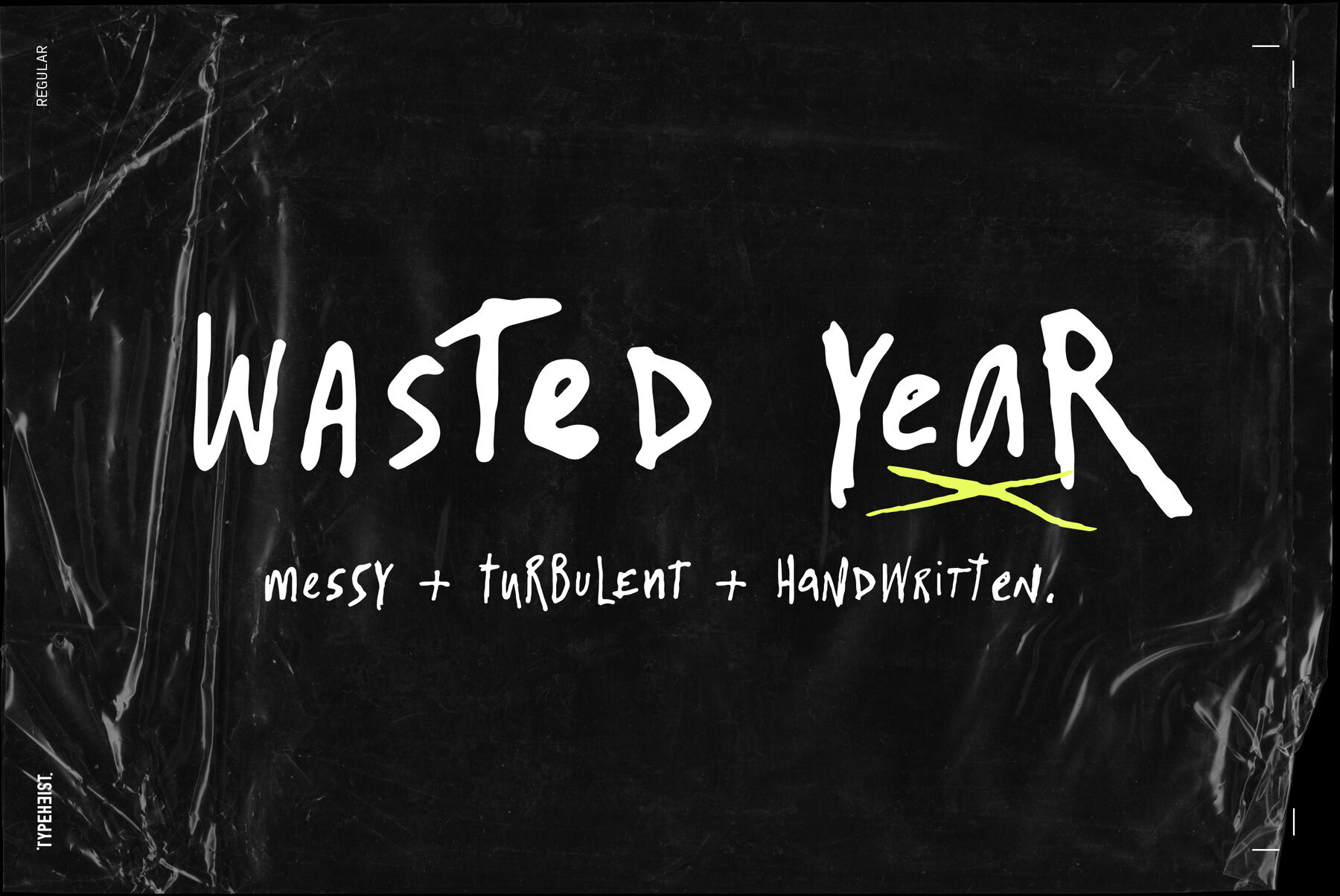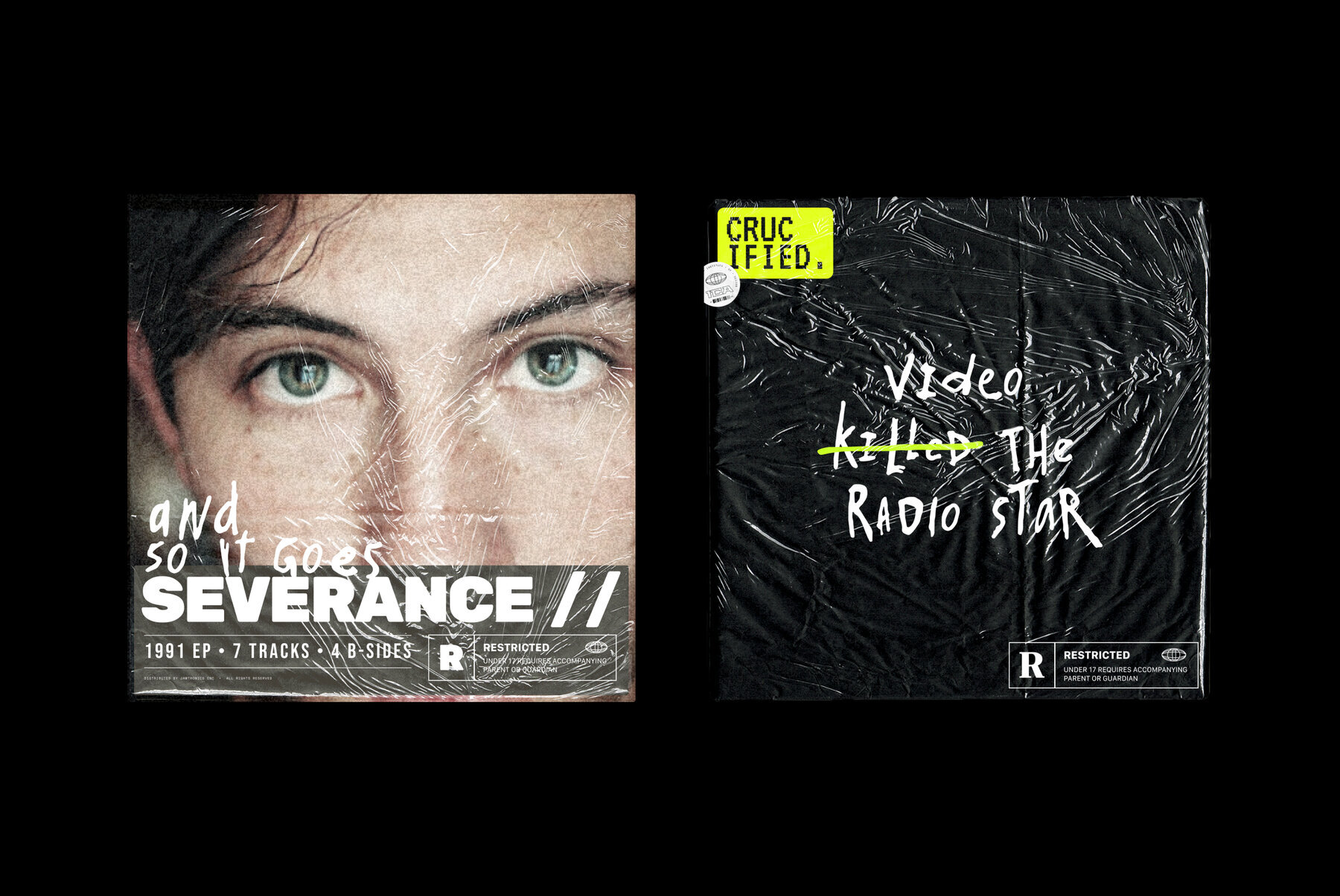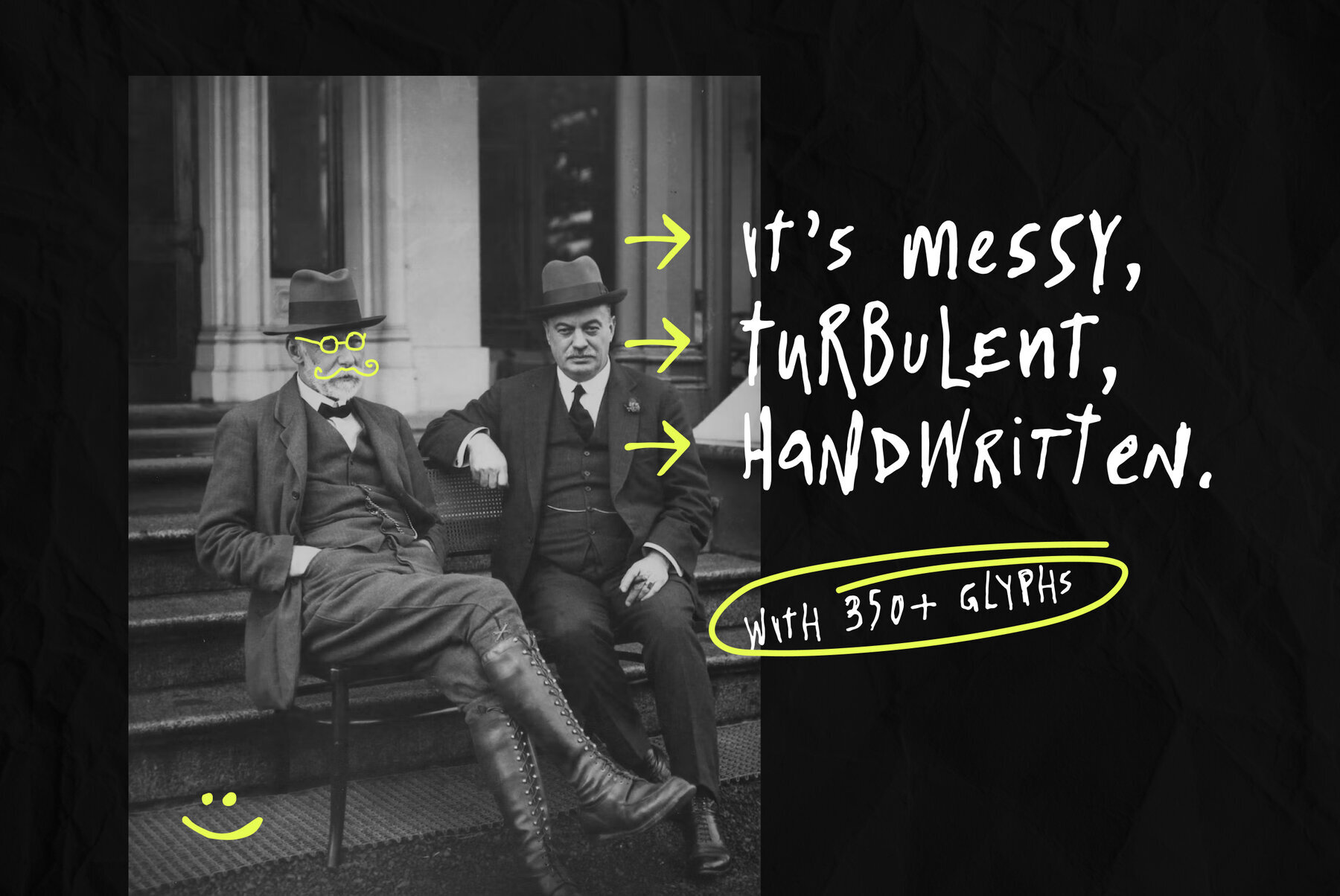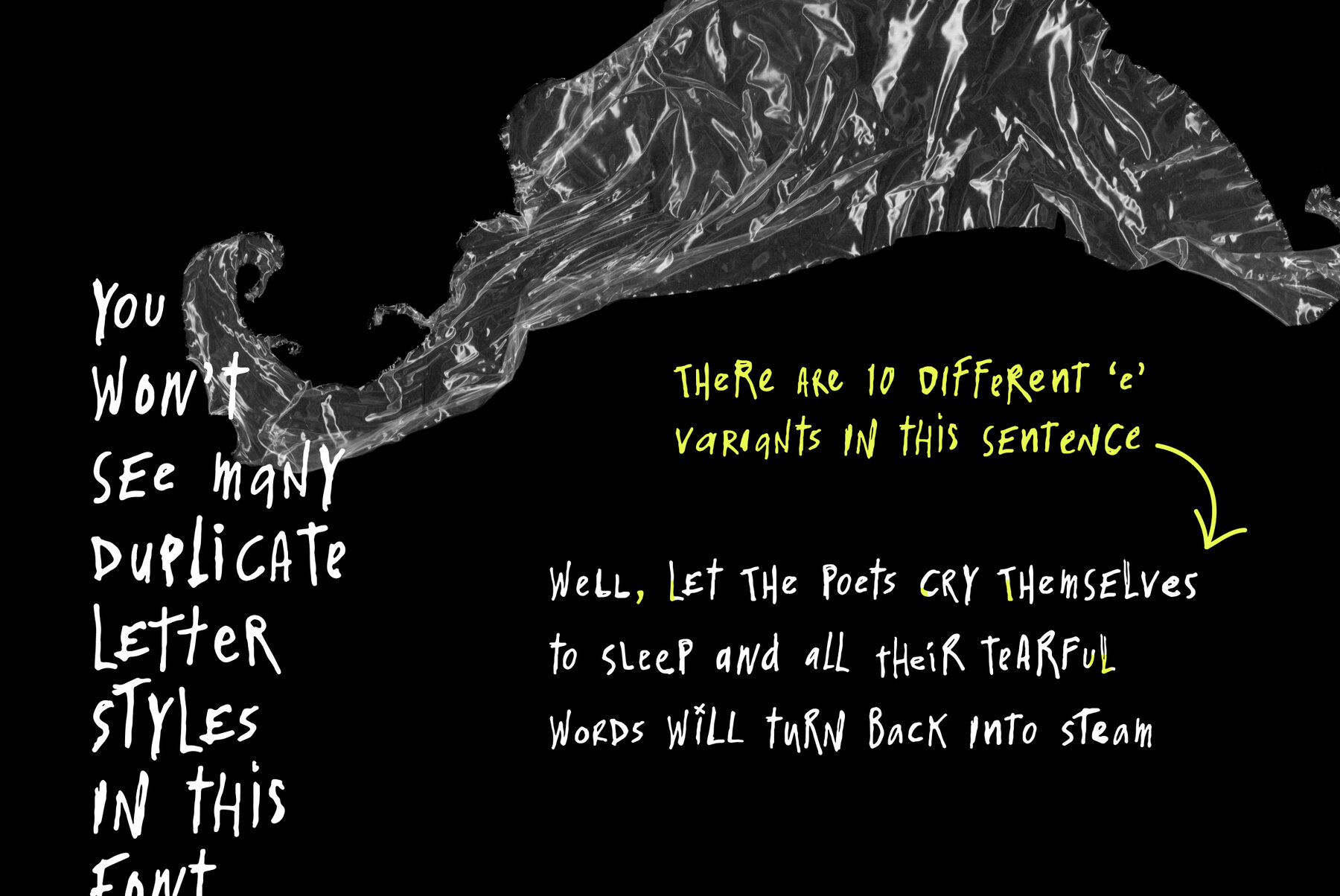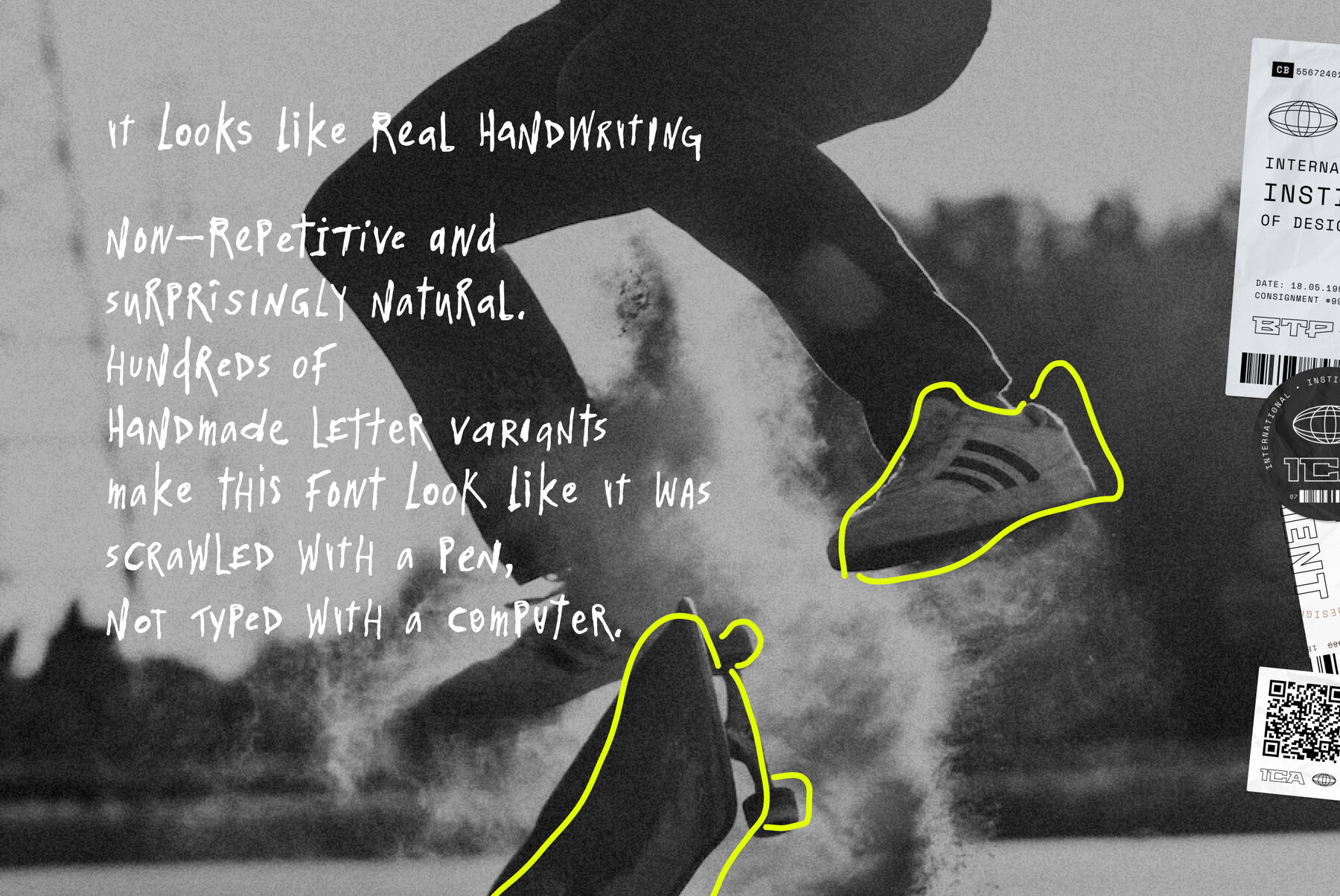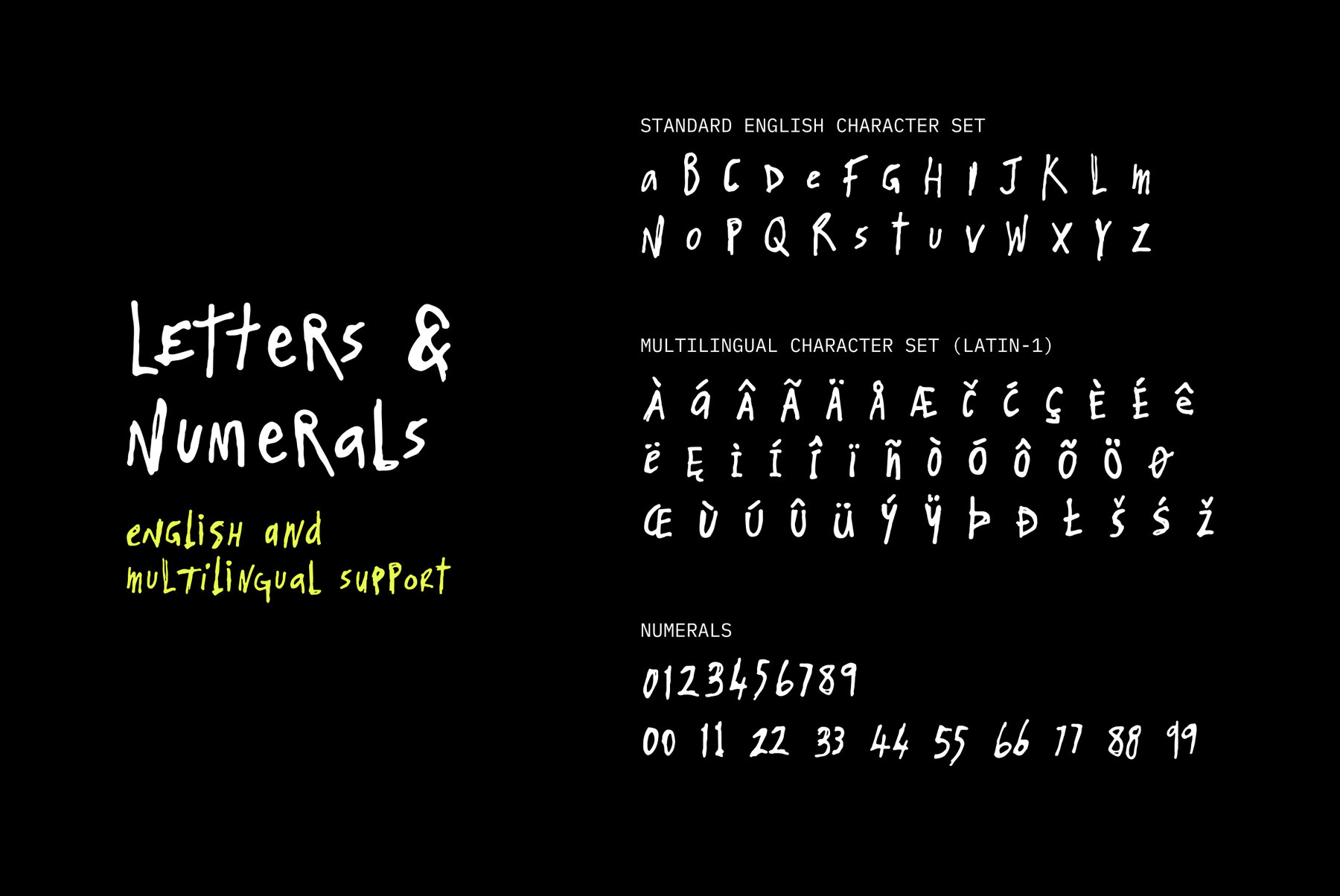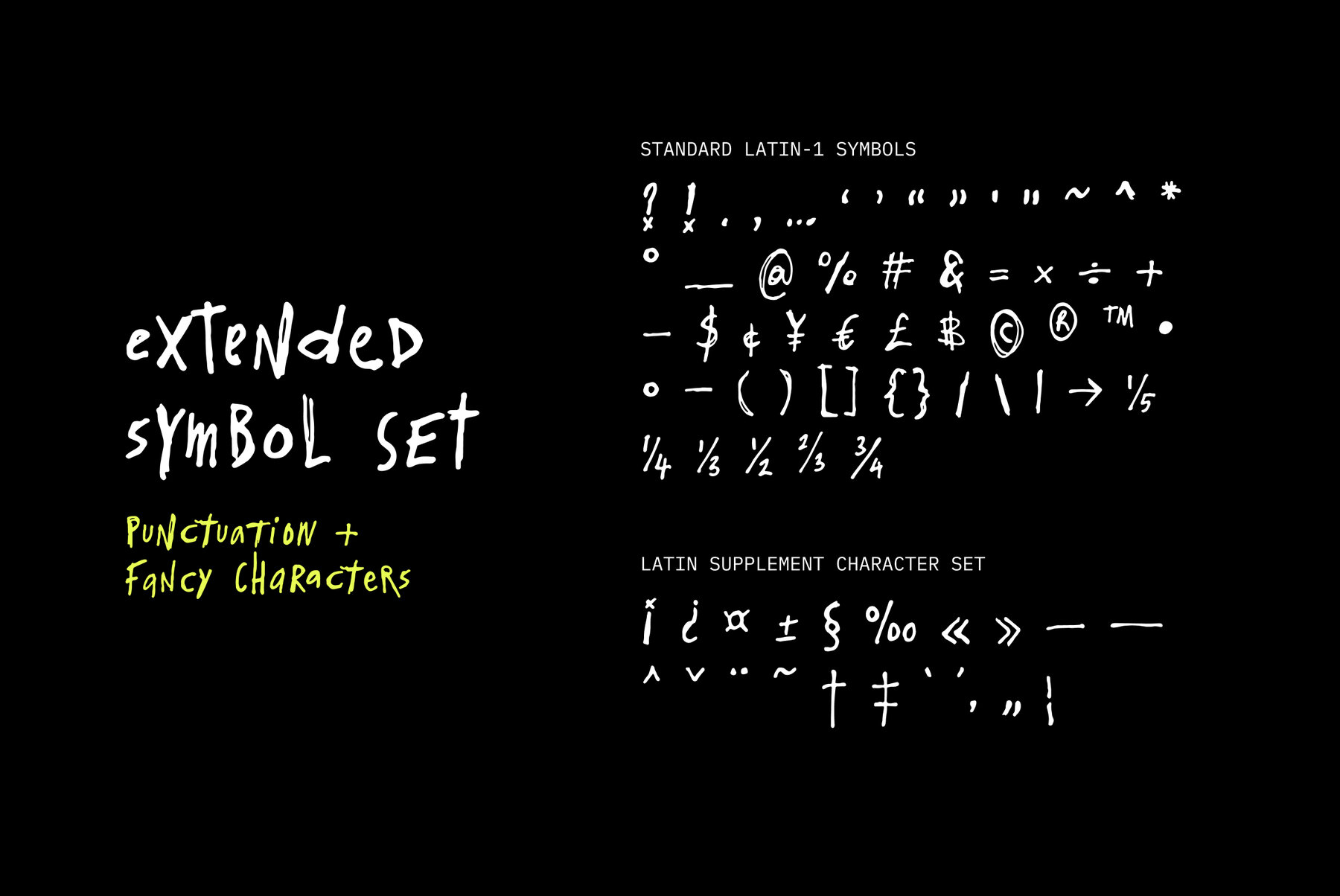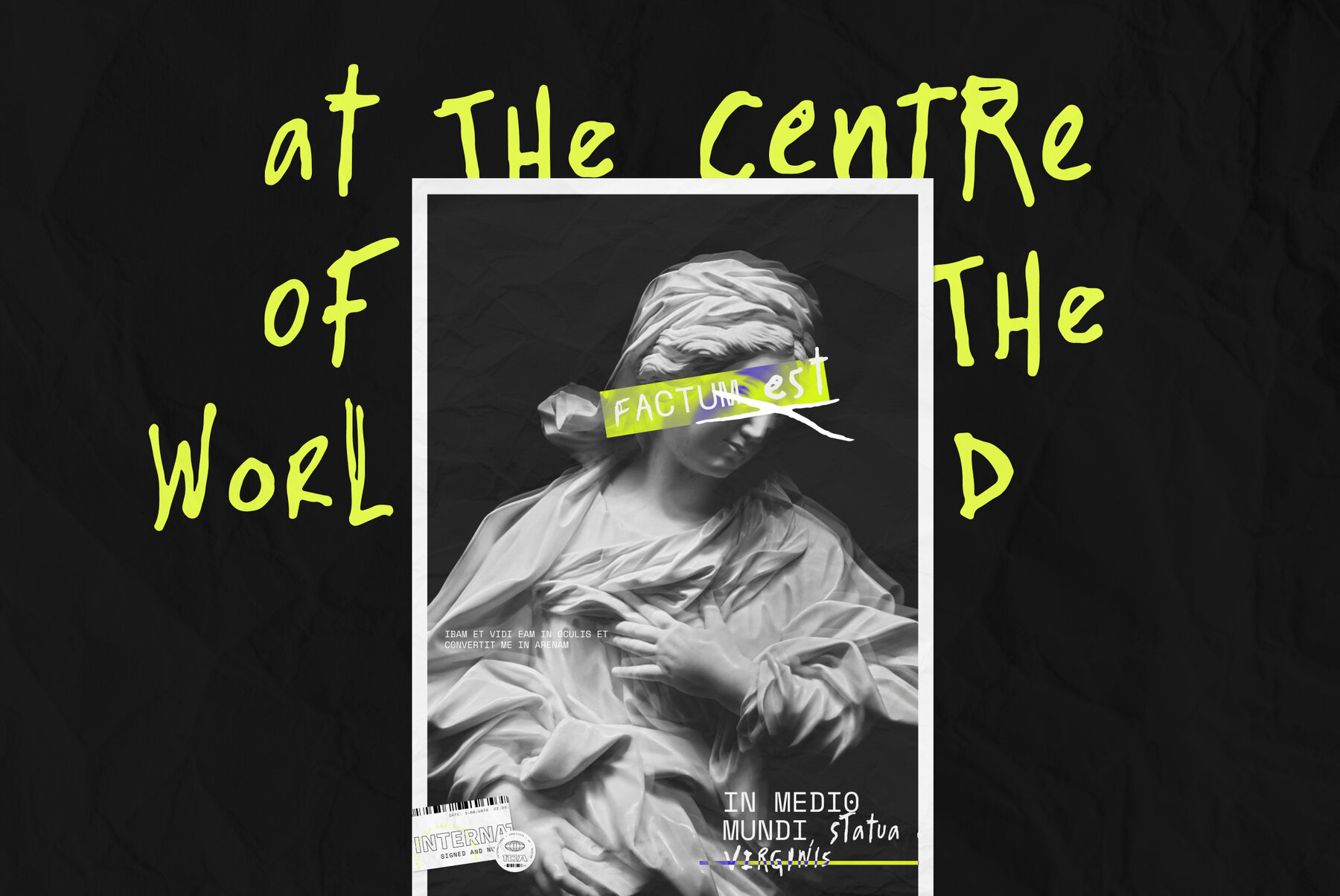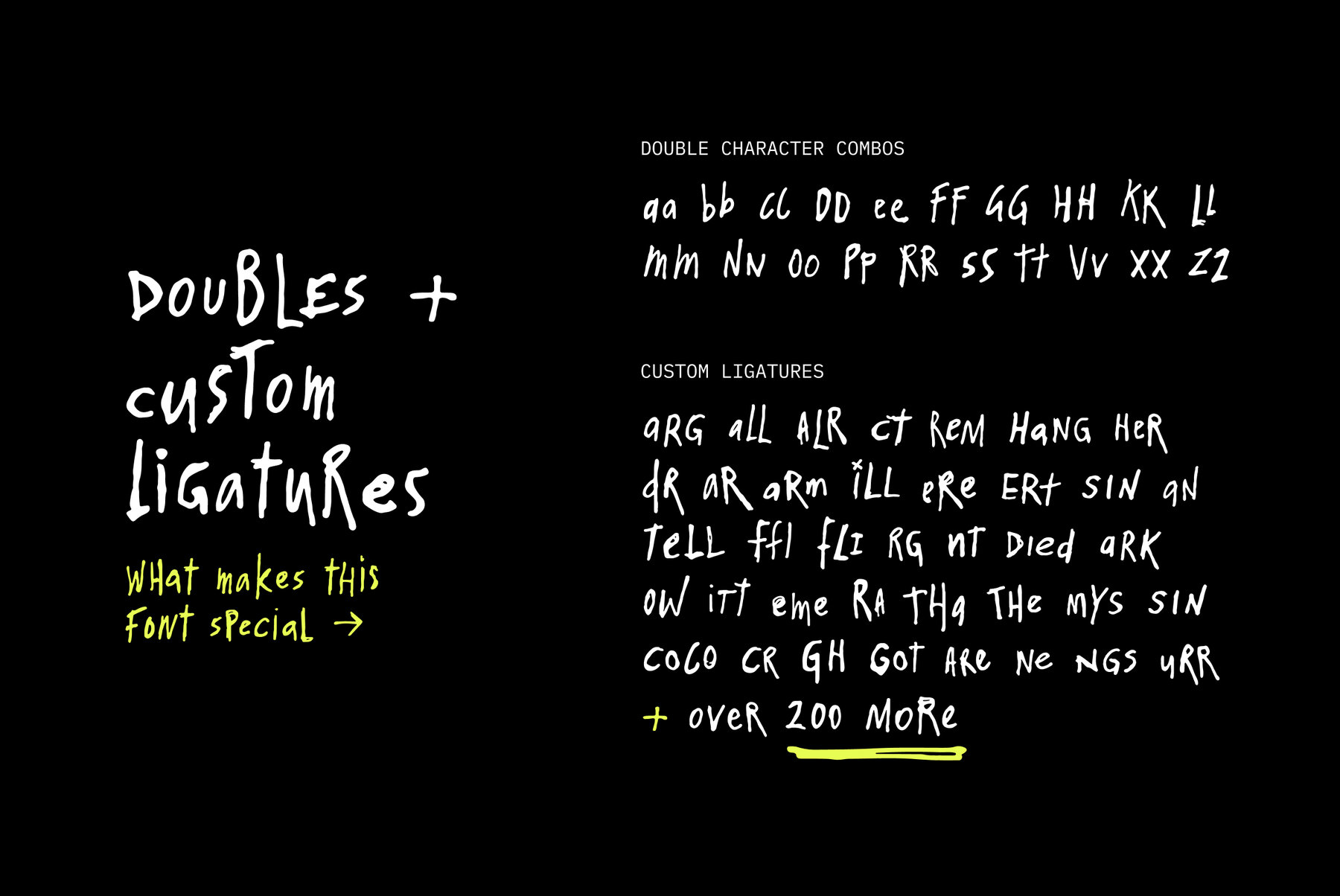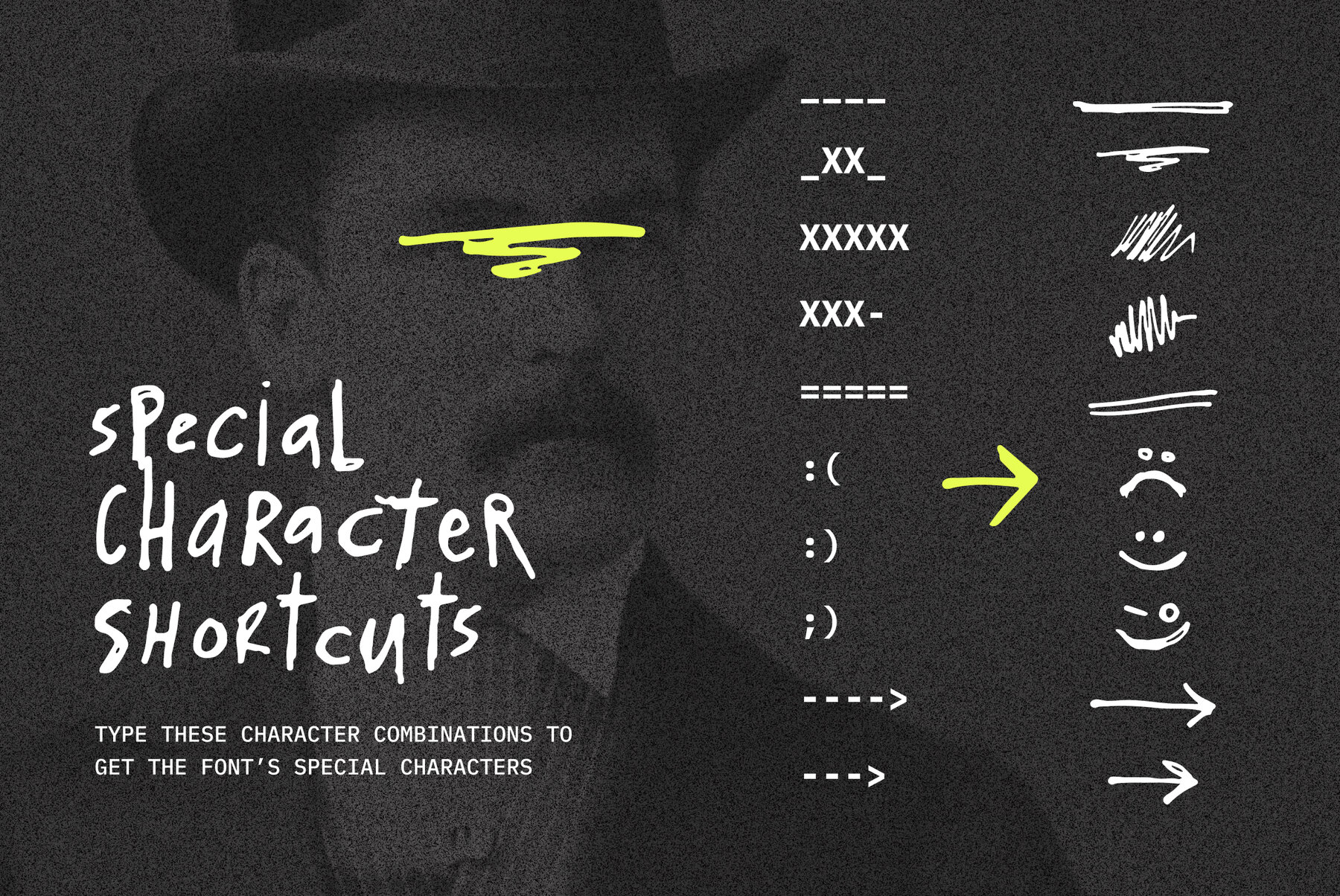
Wasted Year Font
It’s messy, turbulent, handwritten. With over 350 glyphs.
Why does it look so realistic?
Hundreds of handwritten custom letter combinations make this font look like it was scrawled with a pen, not typed with a computer. These characters belong next to each other... that’s how the natural flow and messy style is achieved. You won't see many duplicate letter styles here.